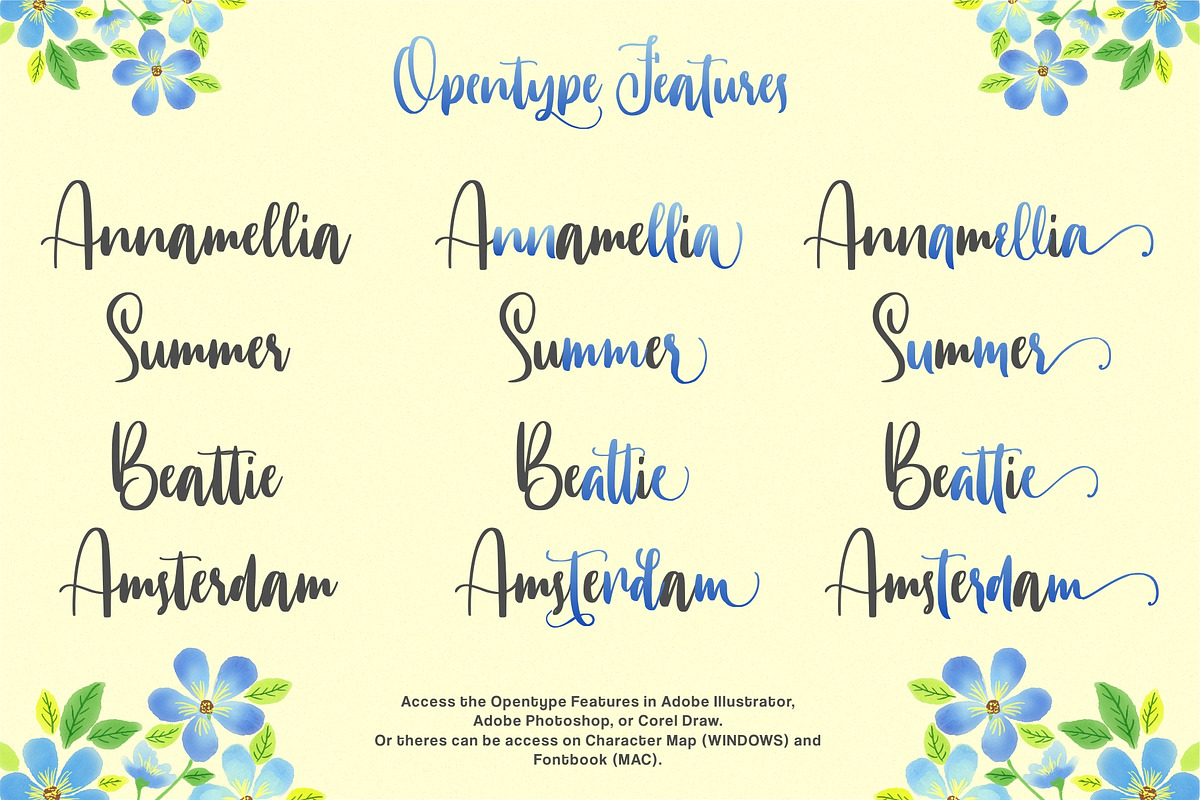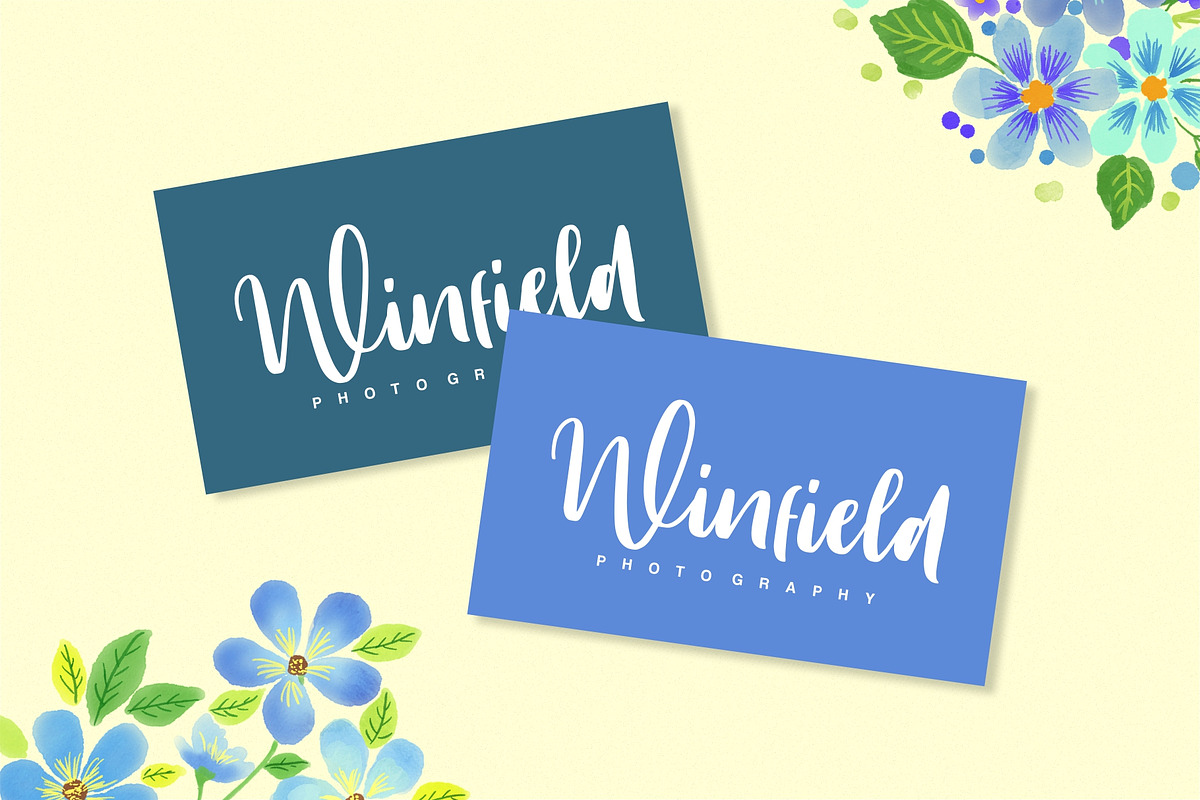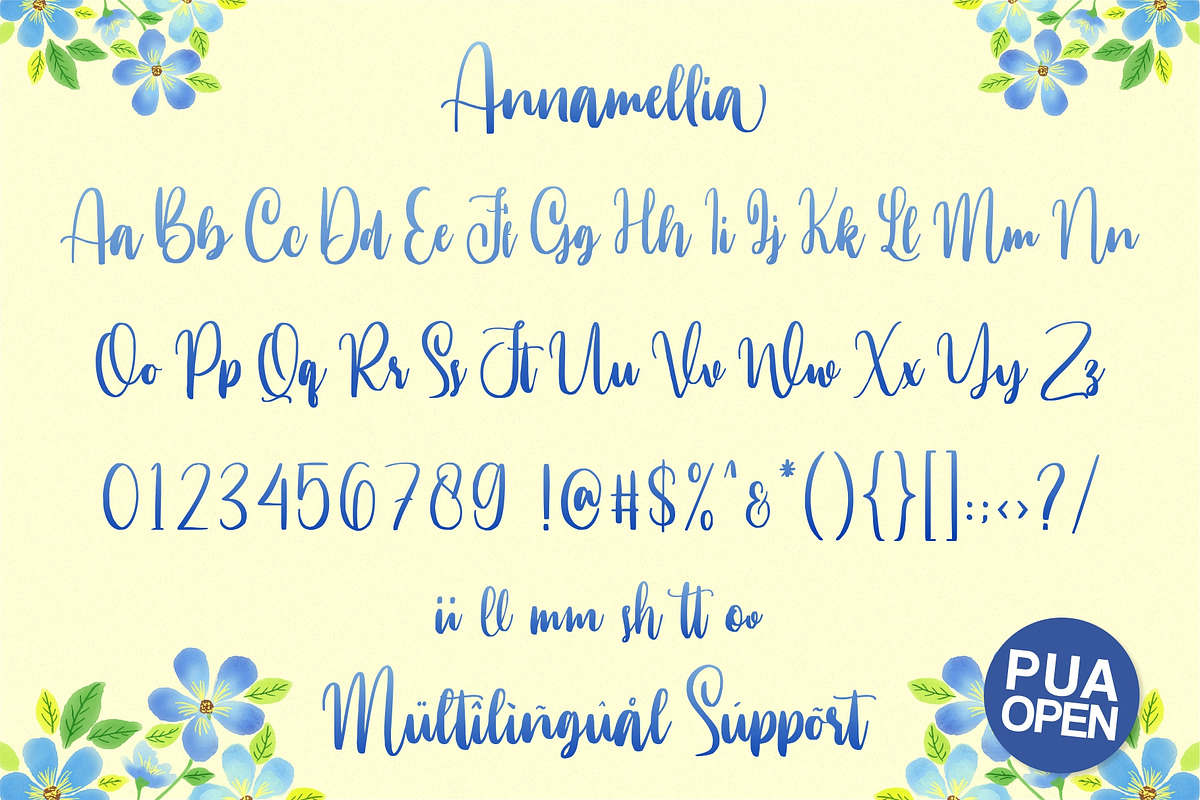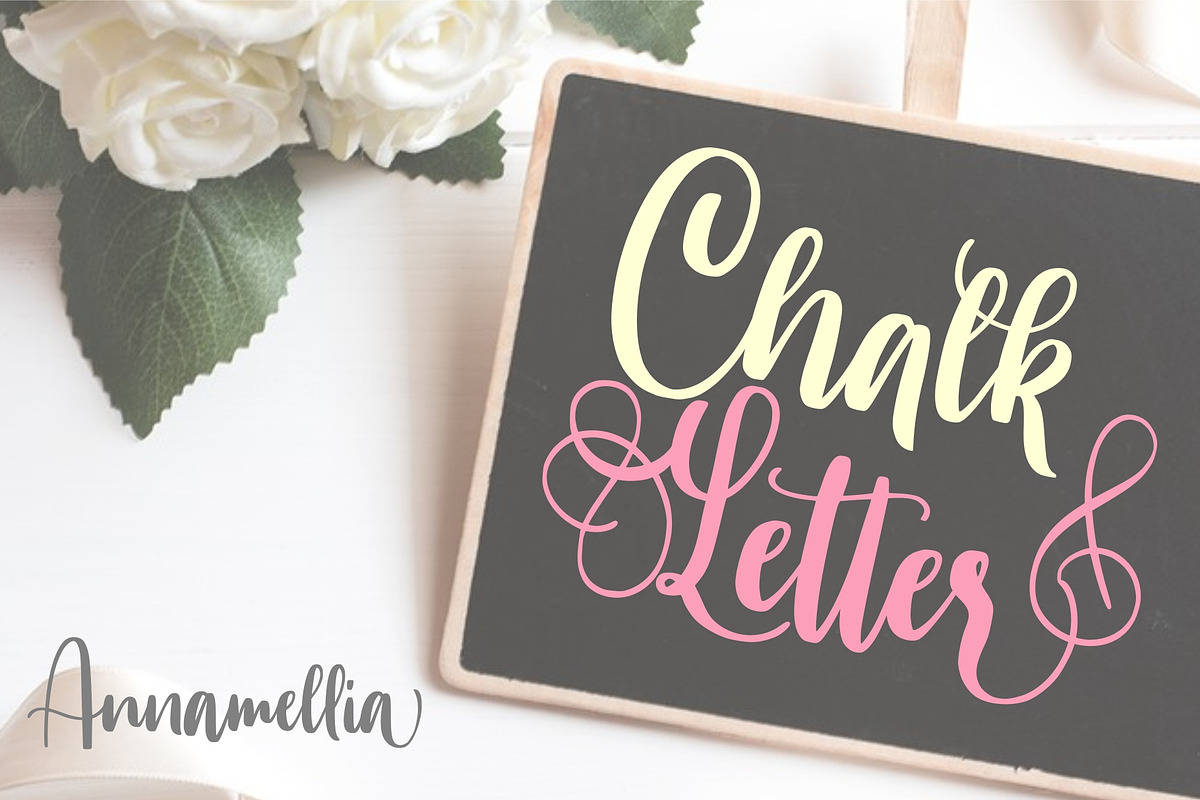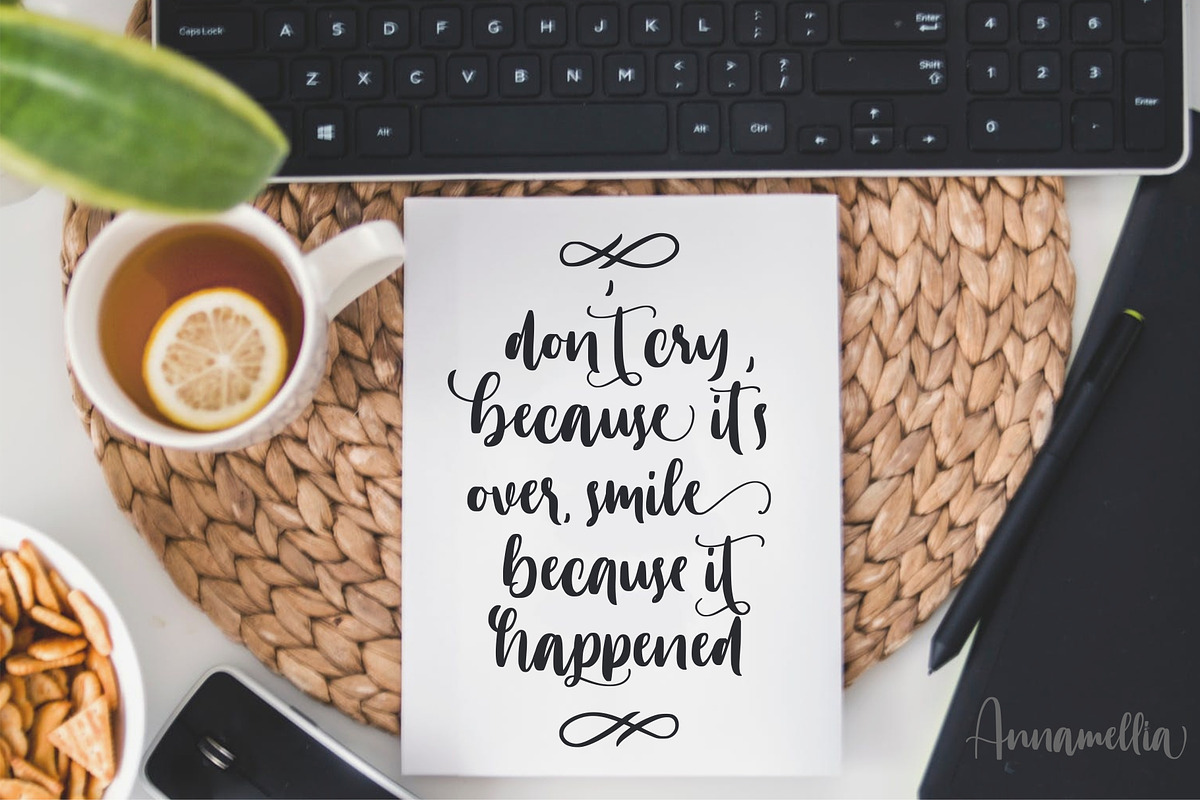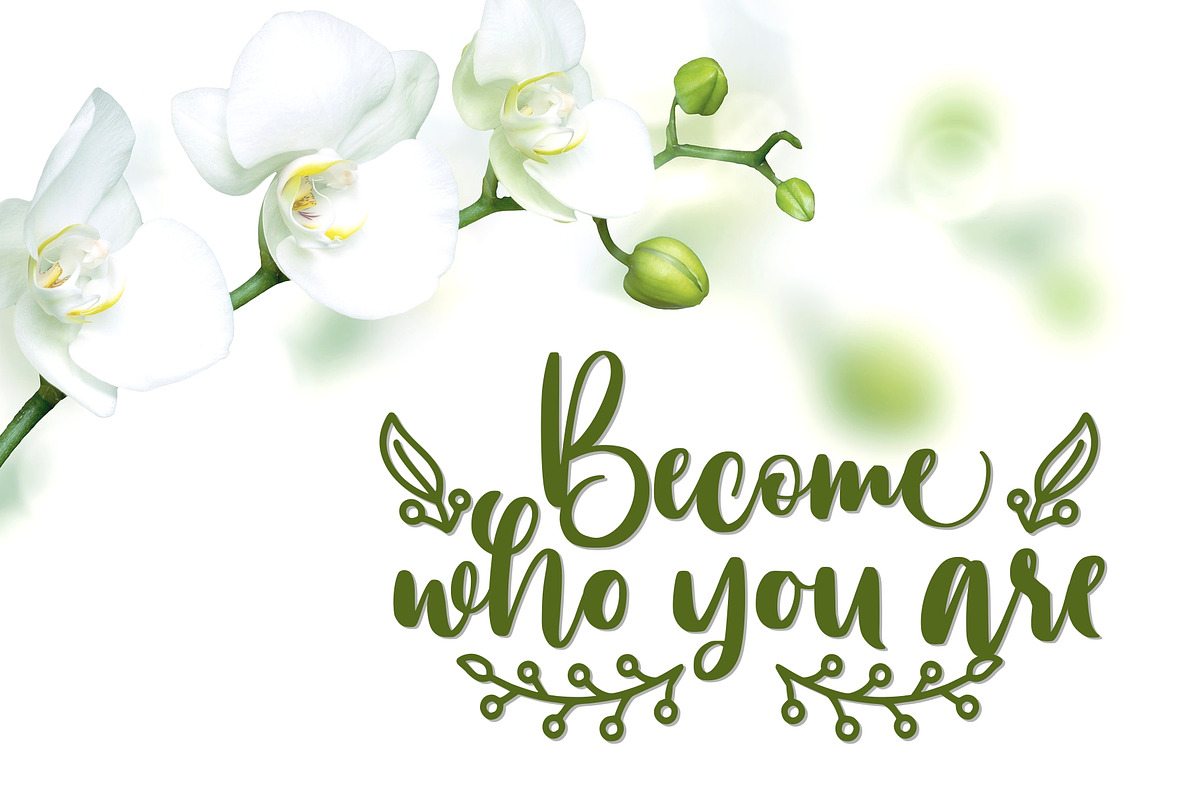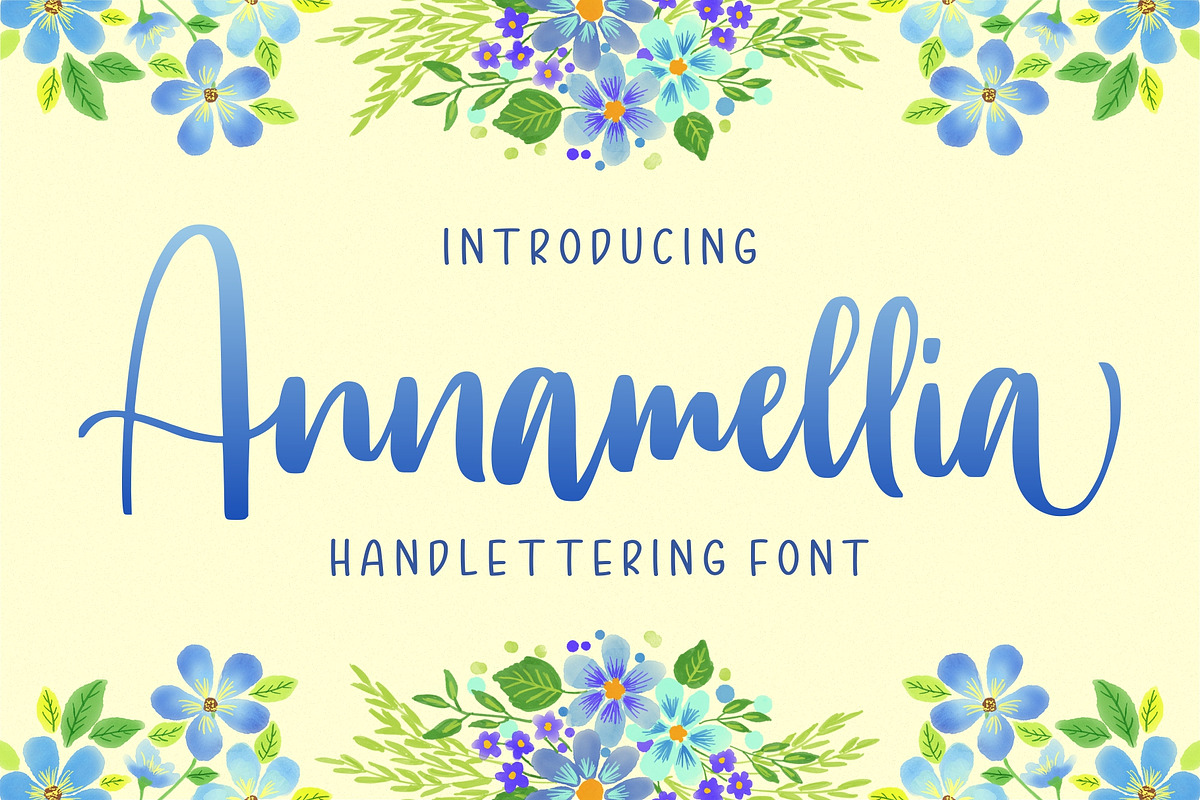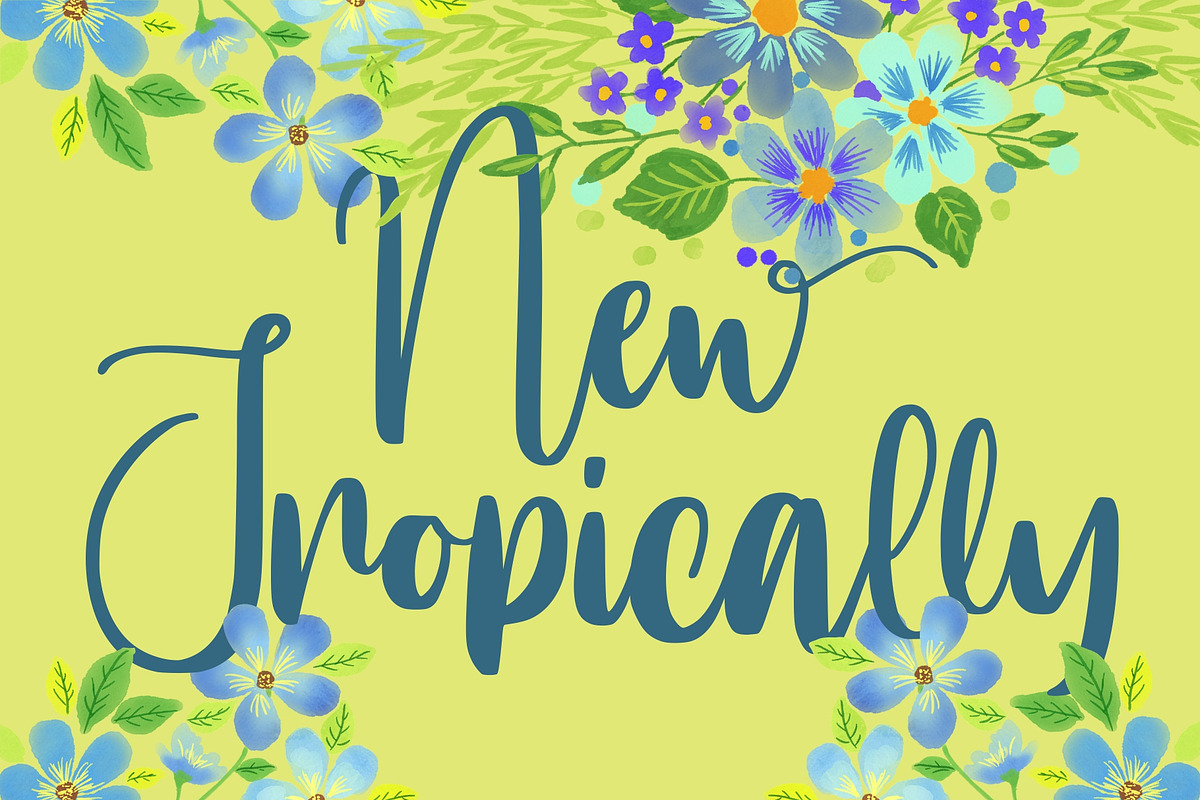
Annamellia - Handlettering Fonts
Annamellia - handlettering font is a natural & modern handlettering font. I'ts Perfect for logo, invitation, stationery, wedding designs, social media posts, advertisements, product packaging, product designs, label, photography, watermark, special events or anything. This font include : Annamellia OTF-TTF , Standar Ligatures, Stylistic Sets, and also Multilingual support.
Very great for branding, logotype, handletteing, invitations, or fashion branding.